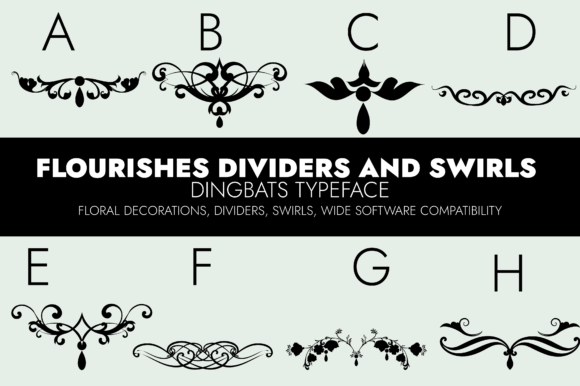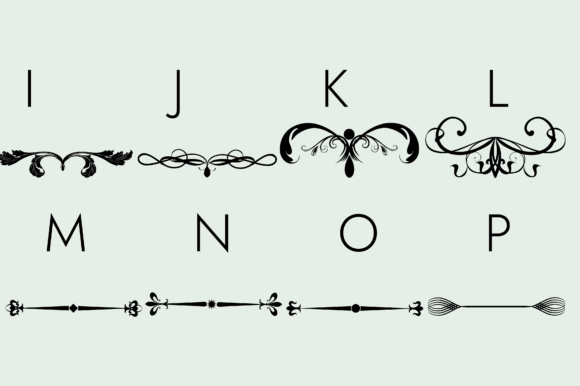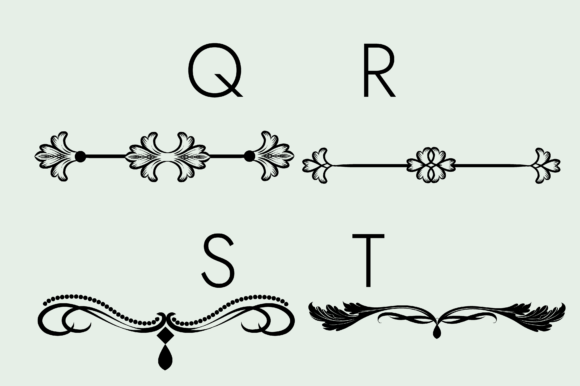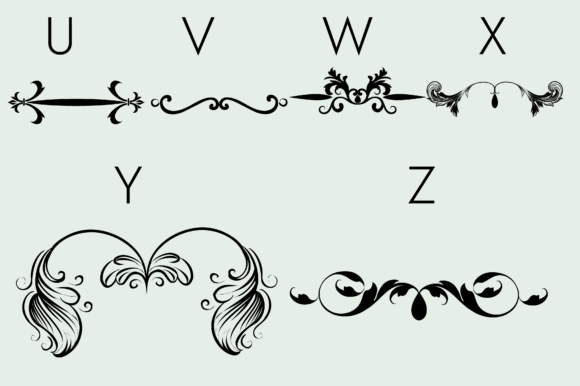
Flourishes Dividers and Swirls Font
About the Flourishes Dividers and Swirls Font
Welcome to the world of Flourishes Dividers and Swirls Font, a typeface that will inspire your next great project. “Flourishes, Dividers, and Swirls” is a useful dingbats font that allows you to generate multiple decorations to suit all your design needs! Use it for your most creative design ideas, and you’ll love the results!
This font’s playful, decorative style is ideal for headlines, short text blocks on invitations or packaging, and as accents in logos or branding materials for businesses targeting a younger or more whimsical audience. It excels in creating visual interest in promotional materials and adds a touch of elegance to projects requiring a decorative flourish. However, its intricacy makes it unsuitable for body text or UI elements where readability is paramount. Avoid using it in long paragraphs or situations requiring small sizes.
For effective pairings, consider combining “Flourishes, Dividers, and Swirls” with clean sans-serif fonts like Open Sans or Lato for a balanced contrast. A classic serif like Garamond or a more modern geometric sans-serif like Montserrat could also provide a strong counterpoint, allowing the decorative elements to stand out without overwhelming the design. Avoid pairing it with other highly ornate fonts.
The overall personality is best described as playful and elegant, injecting a touch of vintage charm or whimsical sophistication depending on the context and accompanying fonts.
Flourishes Dividers and Swirls Font Example